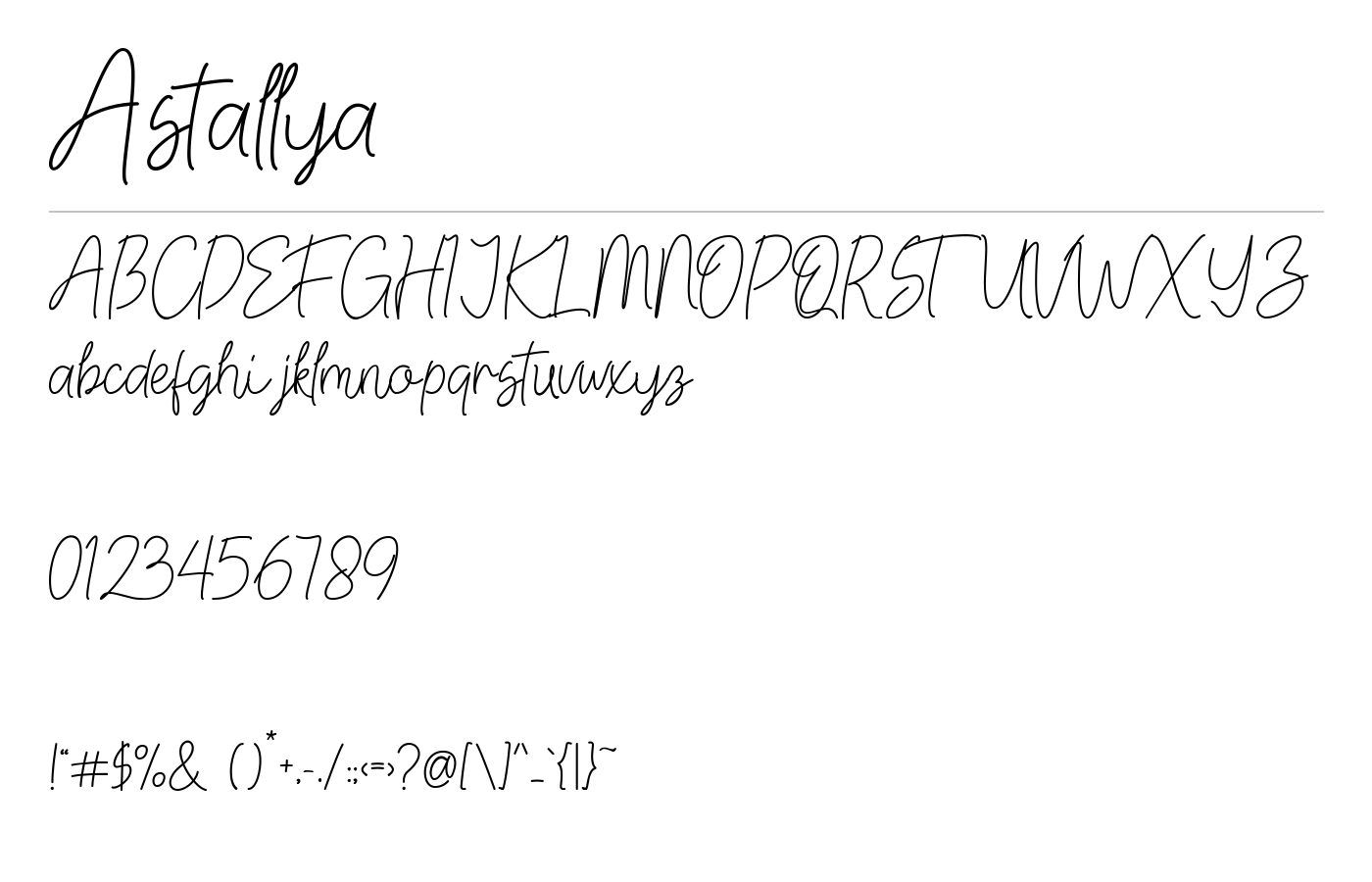
Astallya is a delicate handwritten script font characterized by thin, fluid strokes and a slender, airy structure that gives it an elegant and personal feel. Its tall x-height and playful, slightly irregular letterforms make it ideal for stylish branding, invitations, and editorial use where a touch of sophistication and warmth is desired. This font works best in designs that seek a friendly yet refined look, perfect for fashion, lifestyle, or creative contexts.
Astallya Font
About Astallya Font
| Font family | Astallya Font |
| Designer | Bagas Satriawan |